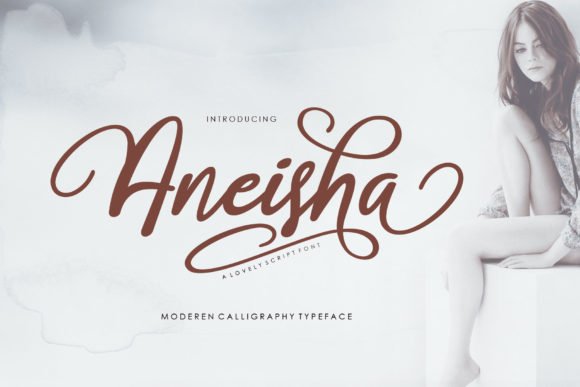
Discover the Timeless Charm of Aneisha Font
Do you remember the moment when a beautiful handwritten font caught your eye, and you just had to use it in your next design project? For designers, this moment is a spark of inspiration that can elevate a simple project into something truly special. And for those who have experienced this thrill, we’re excited to introduce you to Aneisha Font – a stunning, elegant handwritten font that’s perfect for quotes, labels, packaging designs, logos, and much more!
Aneisha Font is a versatile and classic font that brings a touch of sophistication to any design. Its elegant style makes it a valuable asset for designers who want to add a personal and unique touch to their work. Whether you’re a seasoned pro or just starting out, Aneisha Font is sure to inspire you and help you create designs that stand out from the crowd.
Aneisha Font Key Features
- Unique Characteristics: Aneisha Font features a unique blend of modern and traditional design elements, with intricate details and ornate flourishes.
A Designer’s Take on Aneisha Font
Aneisha Font is a typeface that caught my eye with its unique blend of elegance and playfulness. Here’s what I think about it.
- Unique Character Set: Aneisha Font has a distinct set of characters that set it apart from more common fonts. The letterforms are intricately designed, making it perfect for branding and typography.
- Highly Versatile: This font can be used for a wide range of applications, from digital to print media, and even works well in small text sizes.
- Expressive: Aneisha Font has a lot of flair and personality, making it suitable for creative projects that require a bit of whimsy.
- Readability in Large Text Sizes: While Aneisha Font works beautifully in smaller text sizes, it can become somewhat difficult to read in larger sizes due to the intricate details.
- Lack of Consistency: Some characters may not align perfectly, which can lead to a slightly uneven feel in certain applications.
Aneisha Font is an excellent choice for designers who want to add a touch of uniqueness to their projects. While it may have some limitations, the benefits far outweigh the drawbacks. With careful application, Aneisha Font can elevate even the most mundane designs to new heights.
Aneisha Font is suitable for:
- Titles and headings in designs, presentations, and documents.
- Graphic design and illustration projects.
- Choose the script version of Aneisha Font for headings and subheadings.
- Combine with illustrations and watercolor effects to create a whimsical feel.
- Use Aneisha Font in a large size for the title page to make it stand out.
- Pair Aneisha Font with a mix of serif and sans-serif fonts to add contrast.
- Use a distressed texture or a watercolor effect to give the journal a vintage feel.
- Combine with hand-drawn illustrations to add a personal touch.
- Choose the elegant version of Aneisha Font for headings and subheadings.
- Combine with high-end imagery, such as fashion models and luxury lifestyle settings.
- Use Aneisha Font in a clean and simple layout to emphasize the brand’s sophistication.